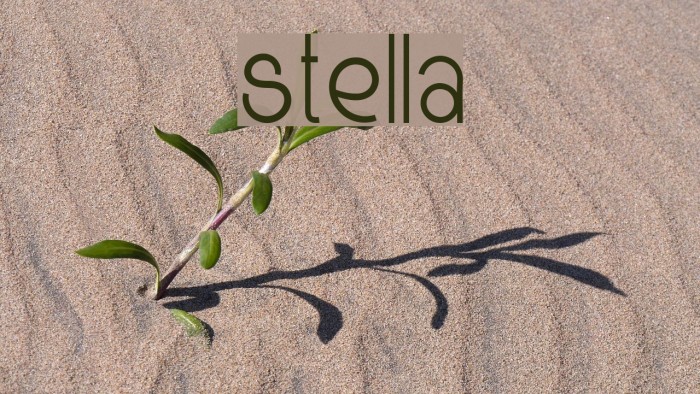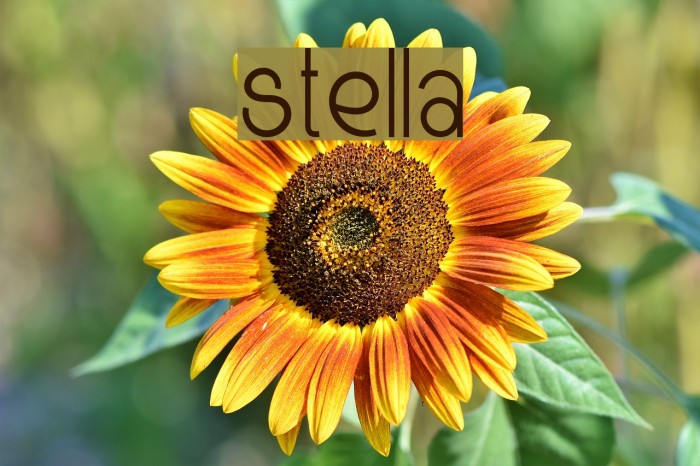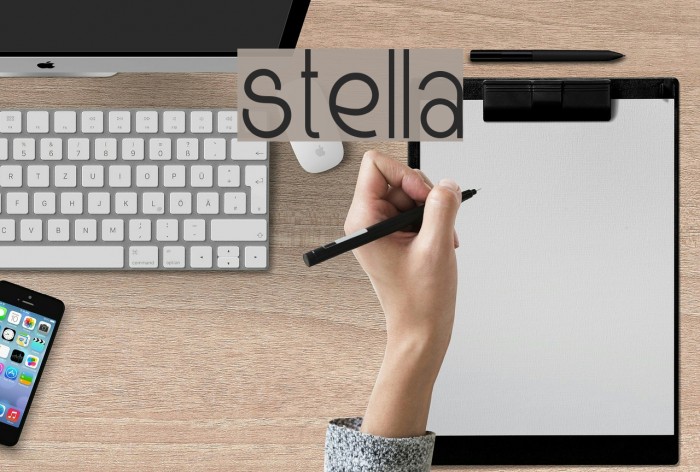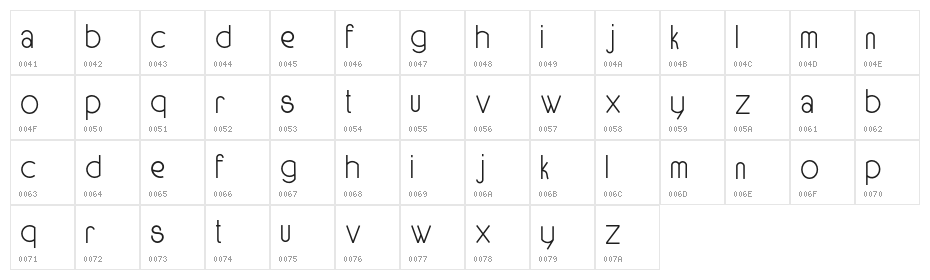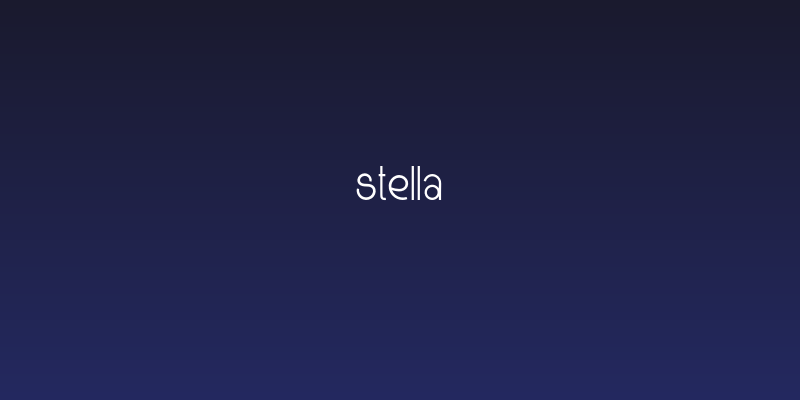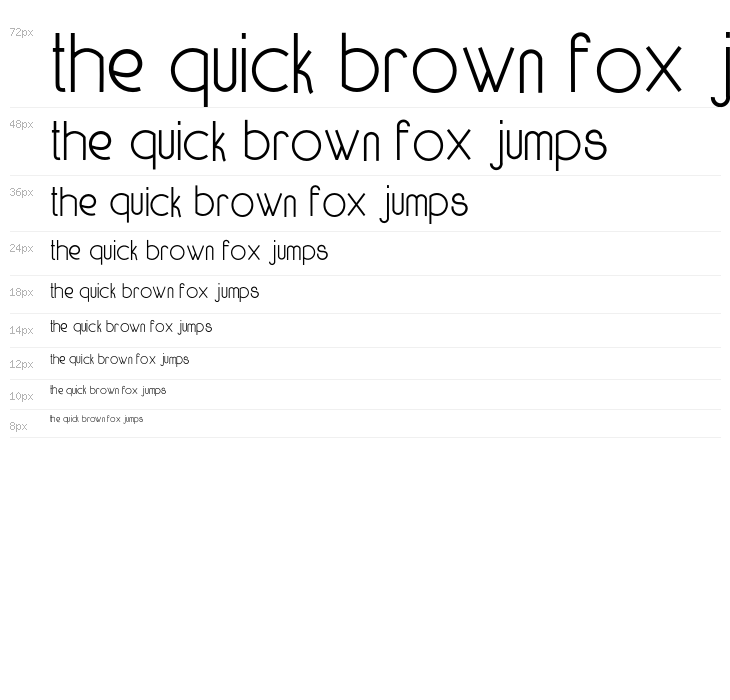
Stella Font
This font features a clean and modern design with a geometric structure. The characters are composed of simple, straight lines and curves, giving it a minimalist and contemporary appearance. The uniform stroke width across all characters provides a cohesive look, while the rounded edges add a touch of softness. This font is highly legible and versatile, making it suitable for a variety of design applications. Its simplicity and clarity make it ideal for use in digital and print media, where readability is key.
A clean, modern font with geometric shapes and uniform stroke width.
- Proposed Projects: Ideal for branding, web design, and editorial projects where a modern and clean aesthetic is desired.